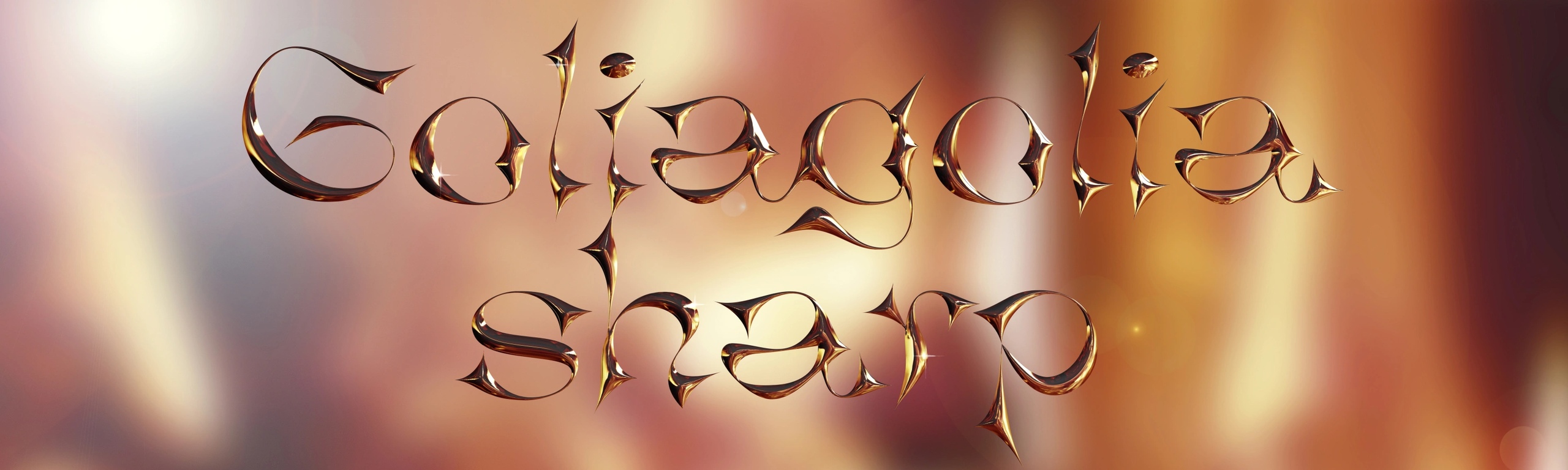
GoliaGolia Font
GoliaGolia Font is perfect for epic movie titles, superhero comic branding, massive gaming tournaments, colossal sports events, giant billboard campaigns, heroic entertainment venues, legendary brand identities, spectacular show promotions, titanic marketing materials, and monumental digital displays.
GoliaGolia Font creates excitement because it embodies the overwhelming power and mythical presence of legendary giants with its colossal letterforms and earth-shaking character design. The font's monumental proportions and titan-inspired aesthetic instantly convey unstoppable force and legendary magnitude, making any brand appear impossibly powerful and mythologically impressive. Its carefully engineered gigantic details and legendary character create an immediate sense of epic grandeur that captivates audiences seeking extraordinary experiences, legendary entertainment, and products that celebrate the awe-inspiring power of mythical giants and colossal achievements.
The GoliaGolia Font family includes multiple weights and styles: Regular, Bold, Black, Ultra Black, Titan, Light, Medium, Italic, Condensed, and Colossal versions. Each variant maintains the font's signature giant character while offering different levels of mythical intensity and legendary styling suitable for various epic entertainment and massive promotional applications.
This legendary typeface represents the ultimate expression of colossal typography for brands demanding mythical presence and earth-shaking impact. GoliaGolia Font Free Download provides entertainment giants and epic brands with access to premium titan-inspired typography that embodies the spirit of legendary power and mythological dominance. The font's colossal design and giant authenticity make it ideal for organizations requiring typography that communicates legendary authority and inspires awe across massive entertainment environments. Whether you're developing brand identities for epic entertainment franchises, creating promotional materials for colossal events, designing signage for legendary attractions, or producing marketing content for titan-scale enterprises, this font delivers the mythical presence that resonates with audiences seeking epic experiences, legendary entertainment, and the overwhelming impact of truly colossal spectacle. Its exceptional performance in massive applications ensures earth-shaking visibility and legendary impact across stadium displays, colossal billboards, and titan-scale digital installations while maintaining readability at mythical proportions. The font excels in applications requiring immediate legendary recognition and colossal appeal. Epic entertainment professionals appreciate its ability to convey mythical power while remaining highly functional for various massive promotional applications and legendary communication systems. The comprehensive character set includes mythological symbols and extensive international language support, making it perfect for global entertainment empires and international legendary organizations seeking to communicate colossal entertainment value, mythical spectacle appeal, and legendary giant experiences to diverse worldwide audiences who crave epic entertainment, seek extraordinary adventures, and demand nothing less than absolutely colossal, mind-blowing, earth-shaking legendary experiences that defy imagination and create permanent memories of mythical proportions.